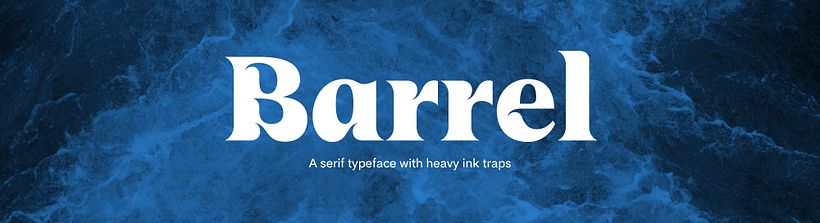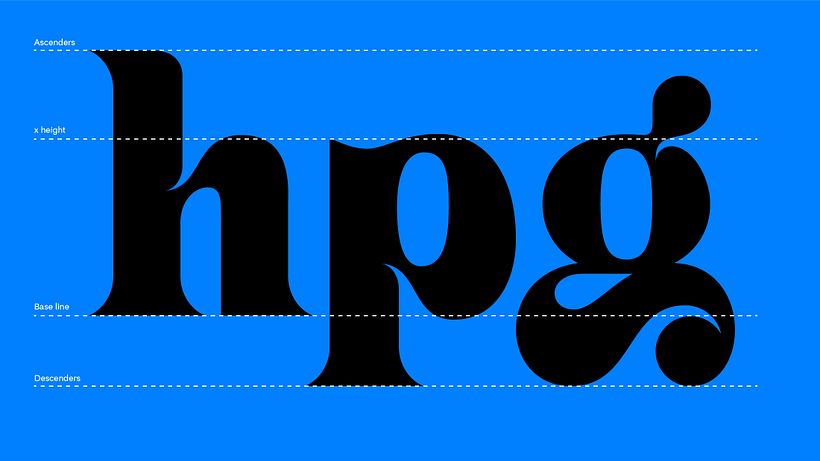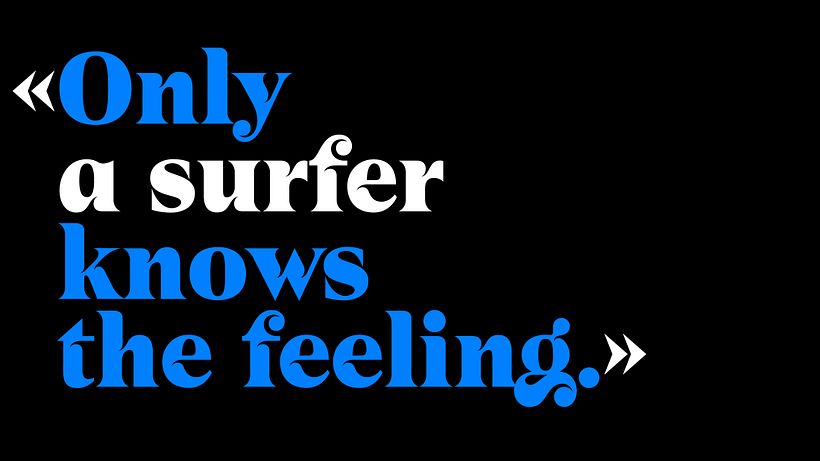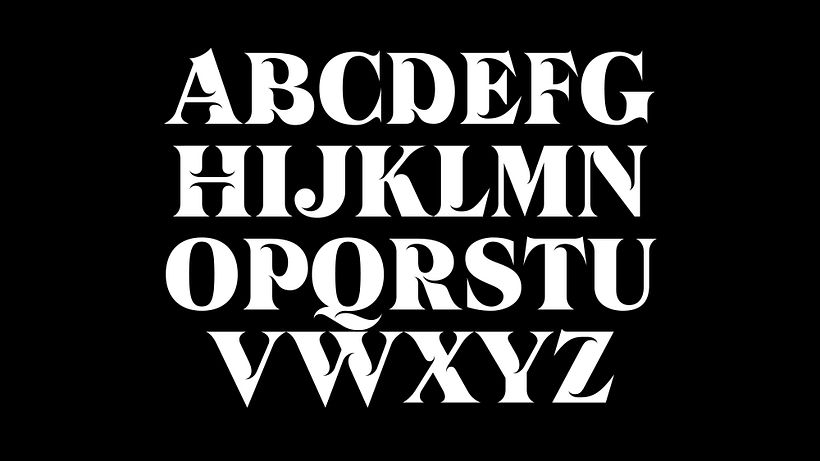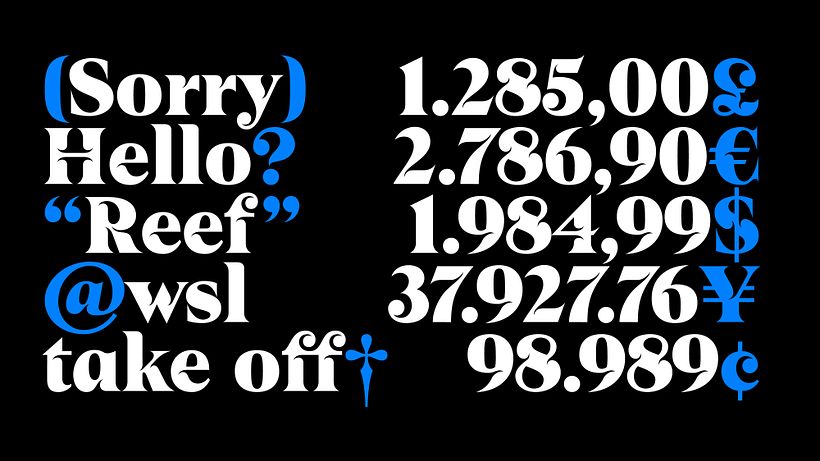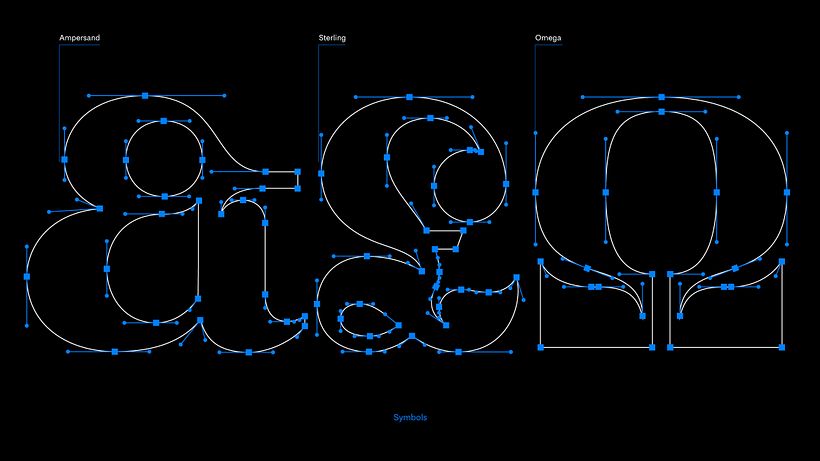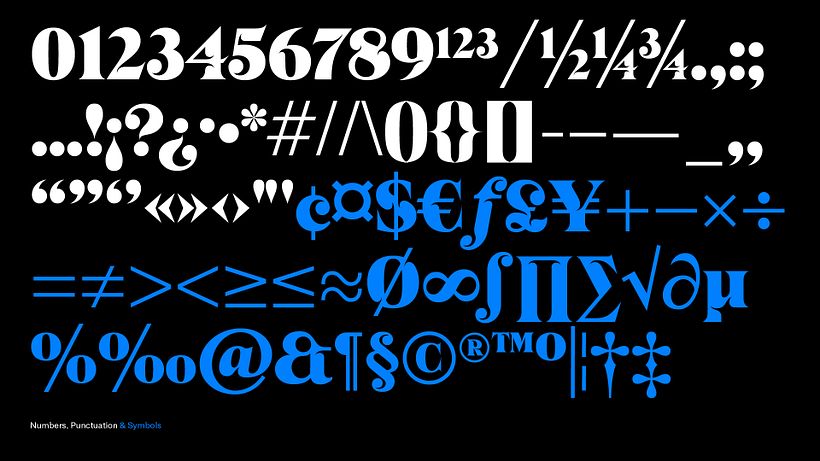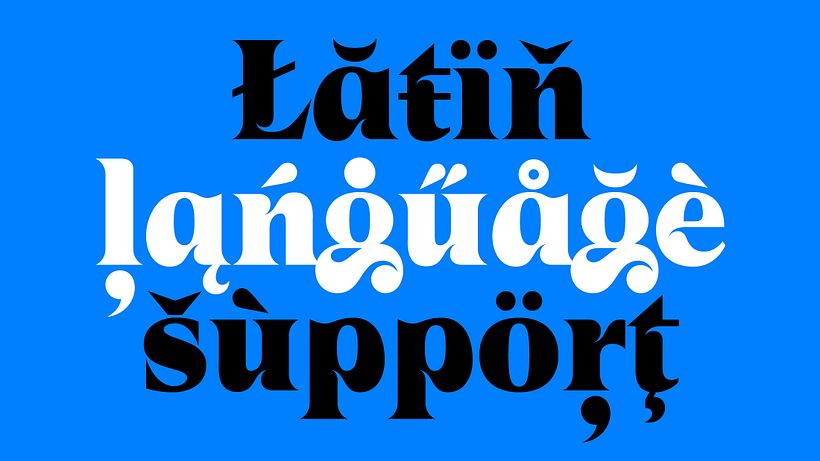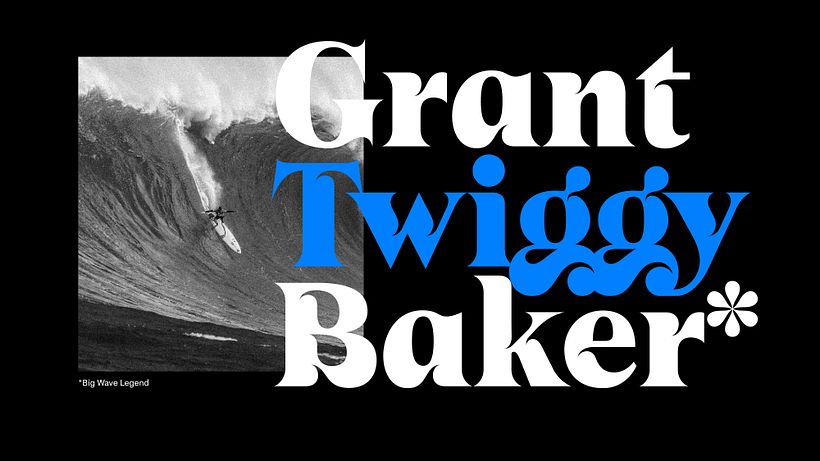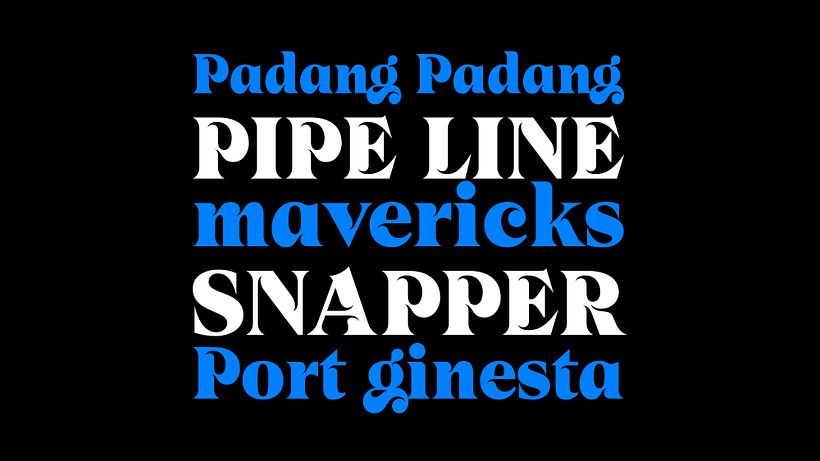
UT Barrel font
UT Barrel is a high contrast serif typeface with heavy ink traps. Inspired by the design of the 70s, UT Barrel tries to mix the essence of surfing with the style of fonts like ITC Grouch by Tom Carnase and Ronne Bonder or the heaviest weights of Caslon. This font has Latin language support and includes some extra ligatures.